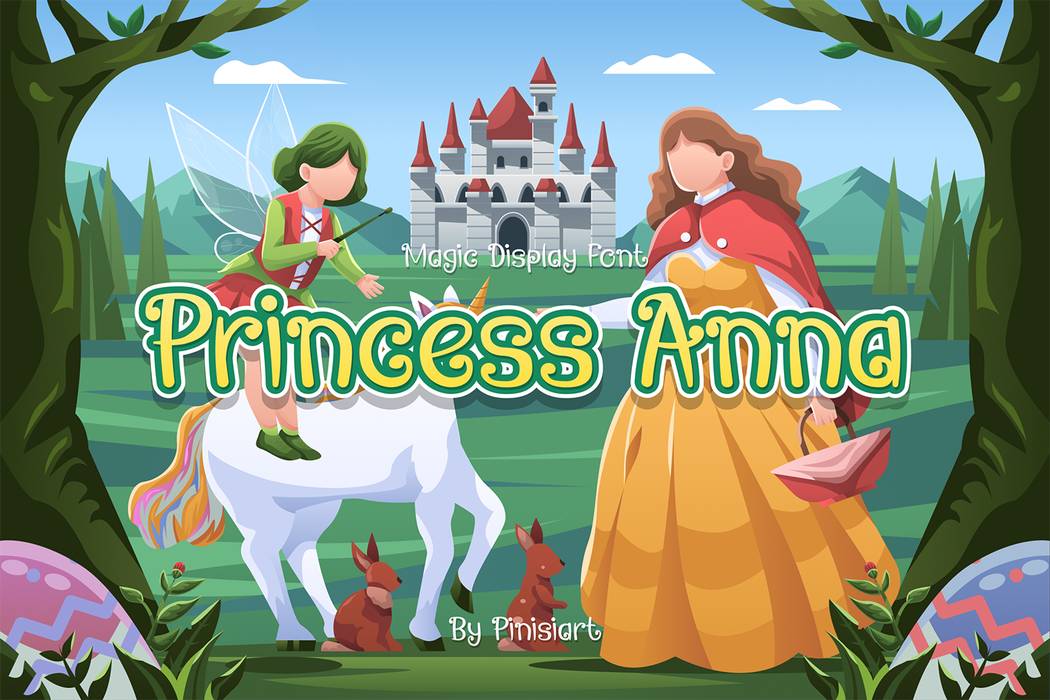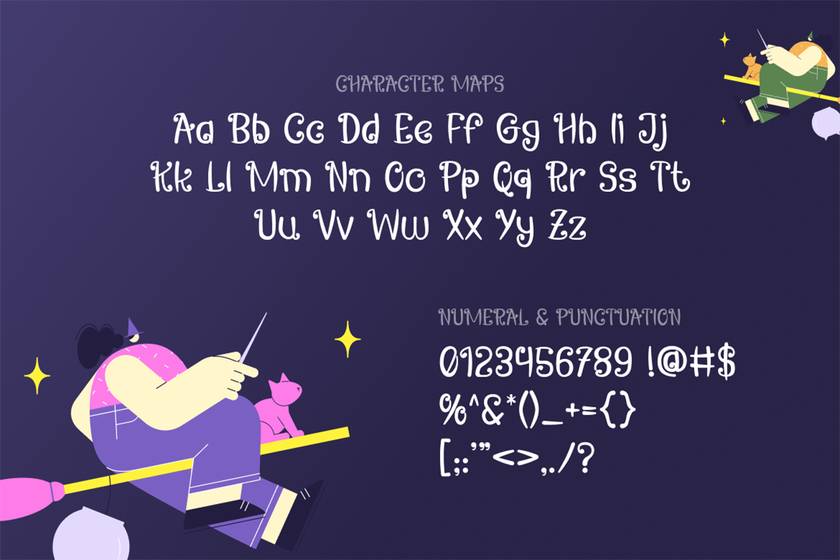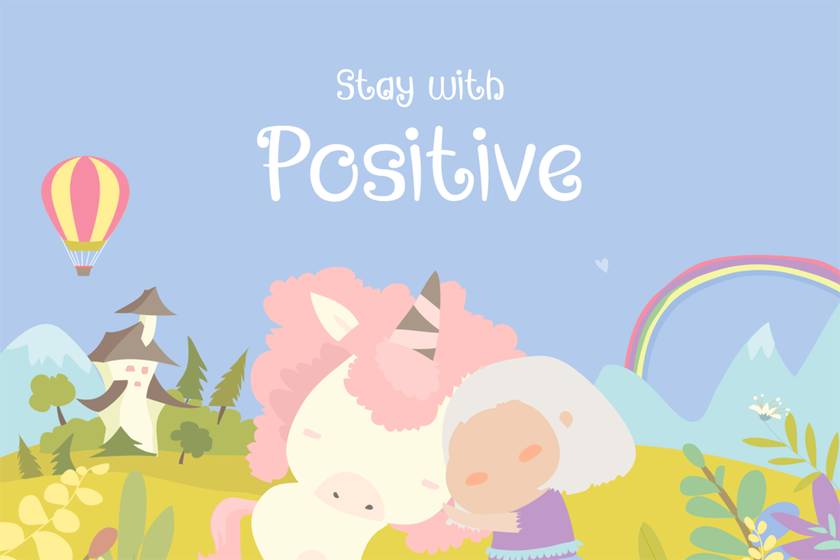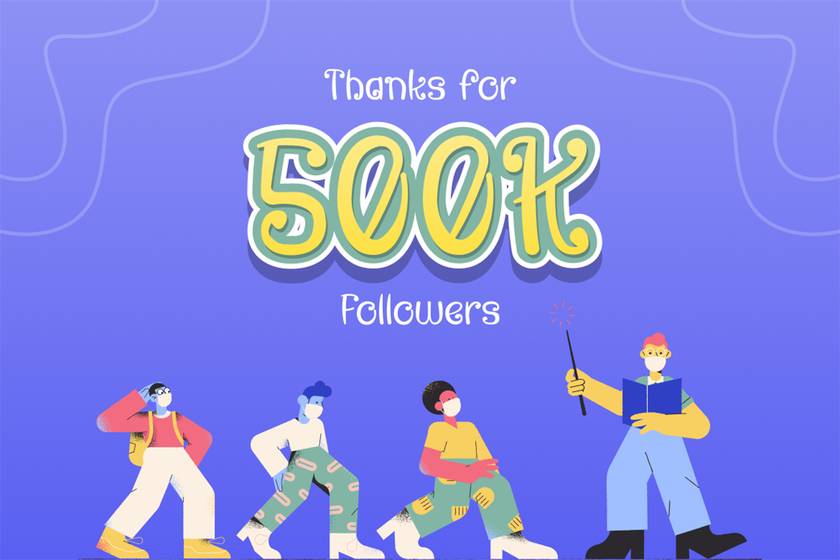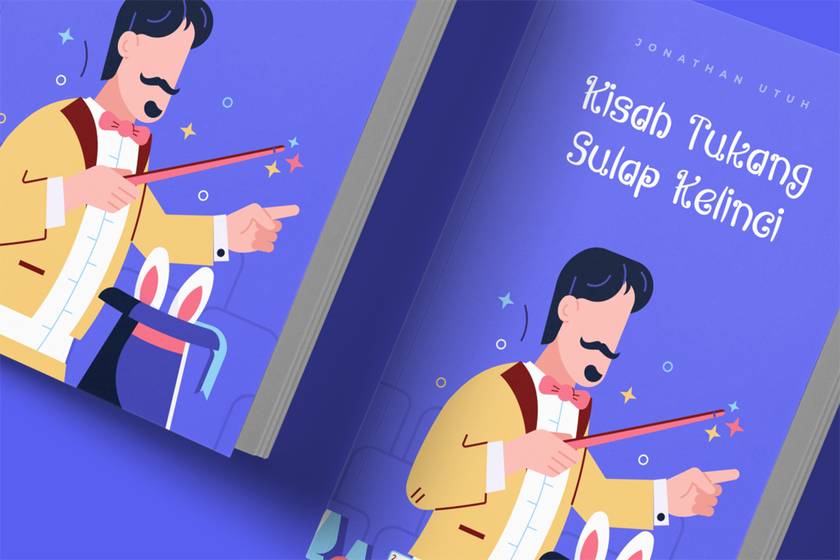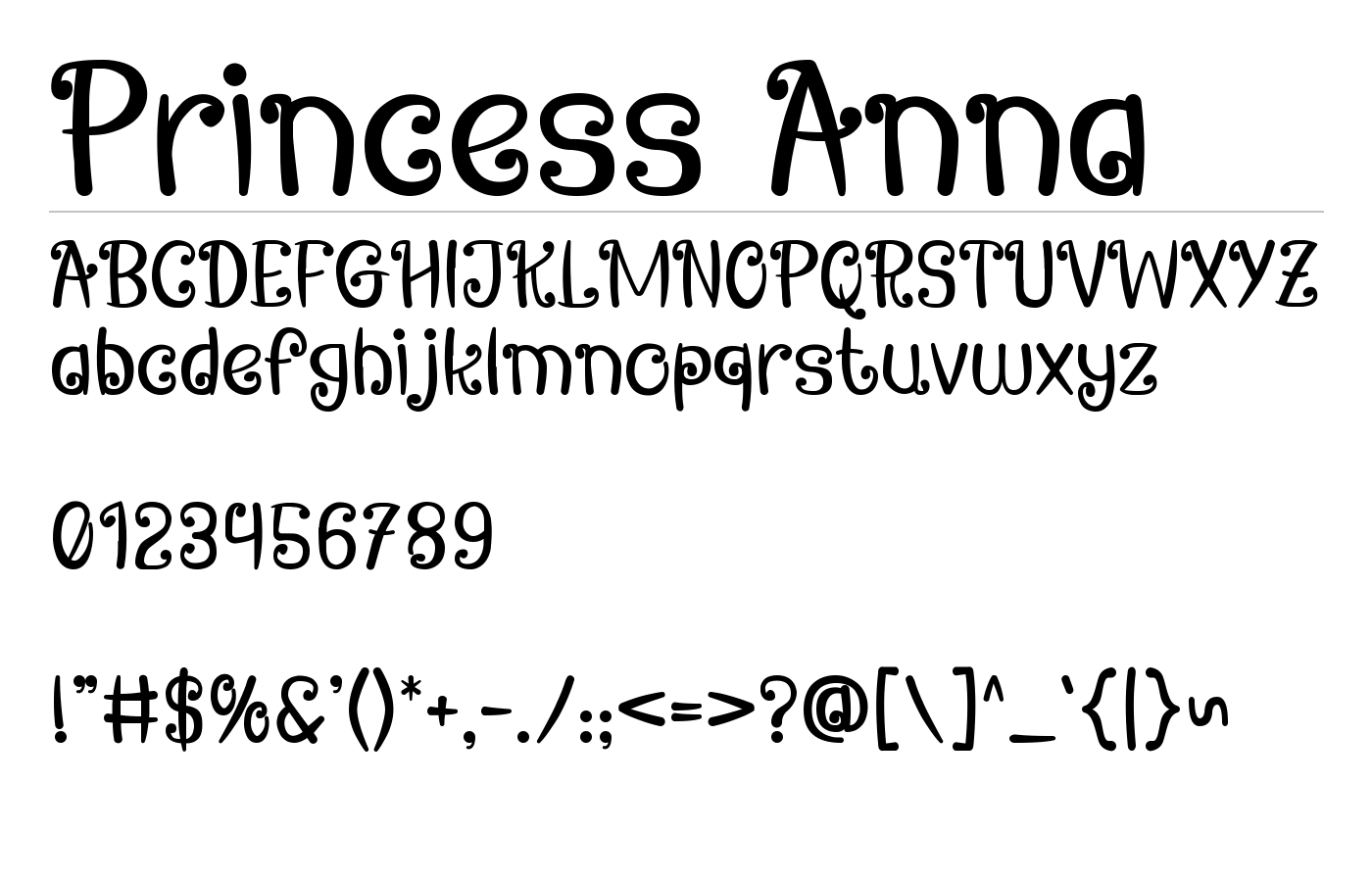
Princess Anna is a playful and whimsical handwritten font featuring rounded strokes with quirky curls and loops that add a charming, childlike feel. It has a casual, friendly personality perfect for creative projects, children’s books, and lighthearted branding, making designs feel fun and approachable. This font works best in headlines, invitations, and logos where a cheerful and informal tone is desired.
Princess Anna Font
About Princess Anna Font